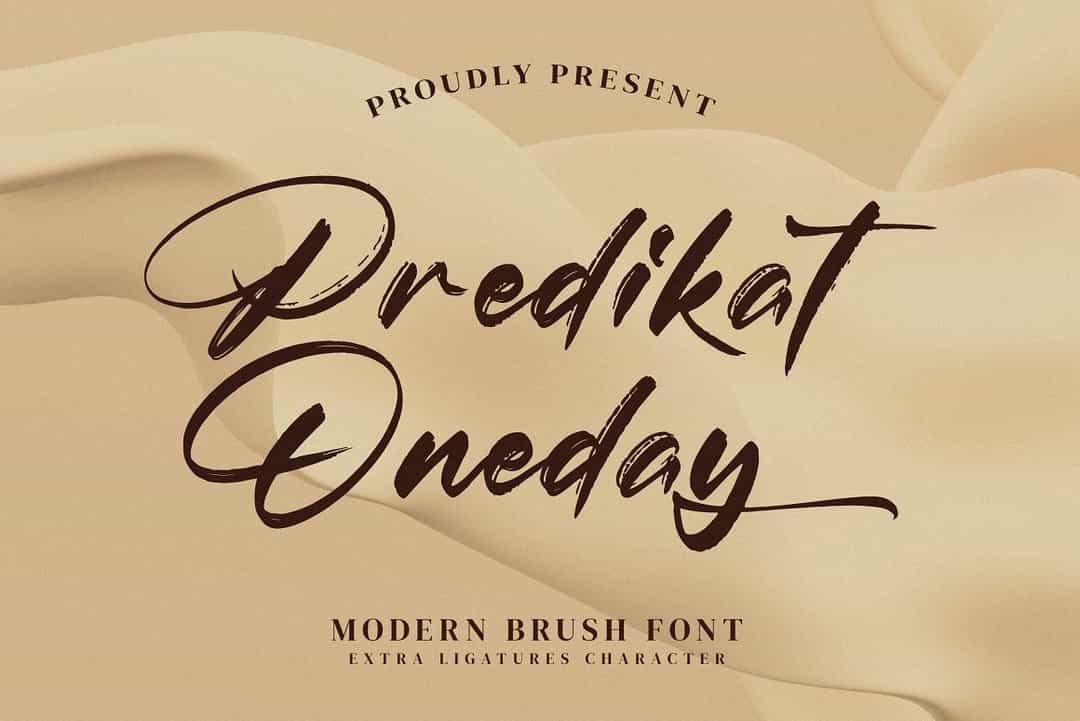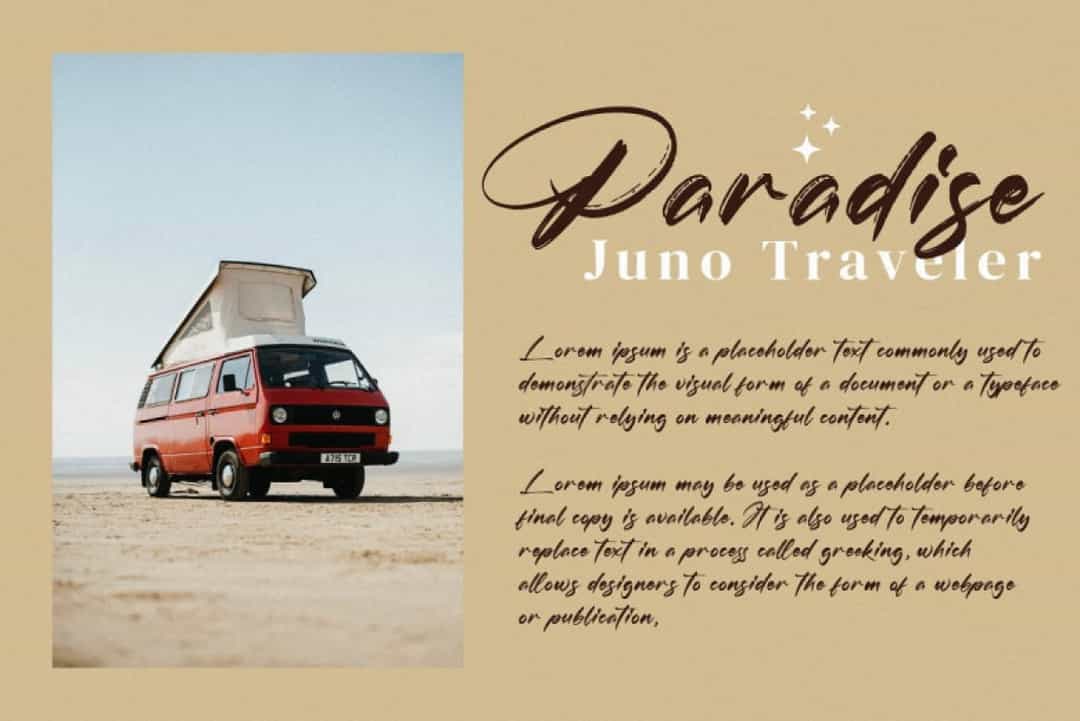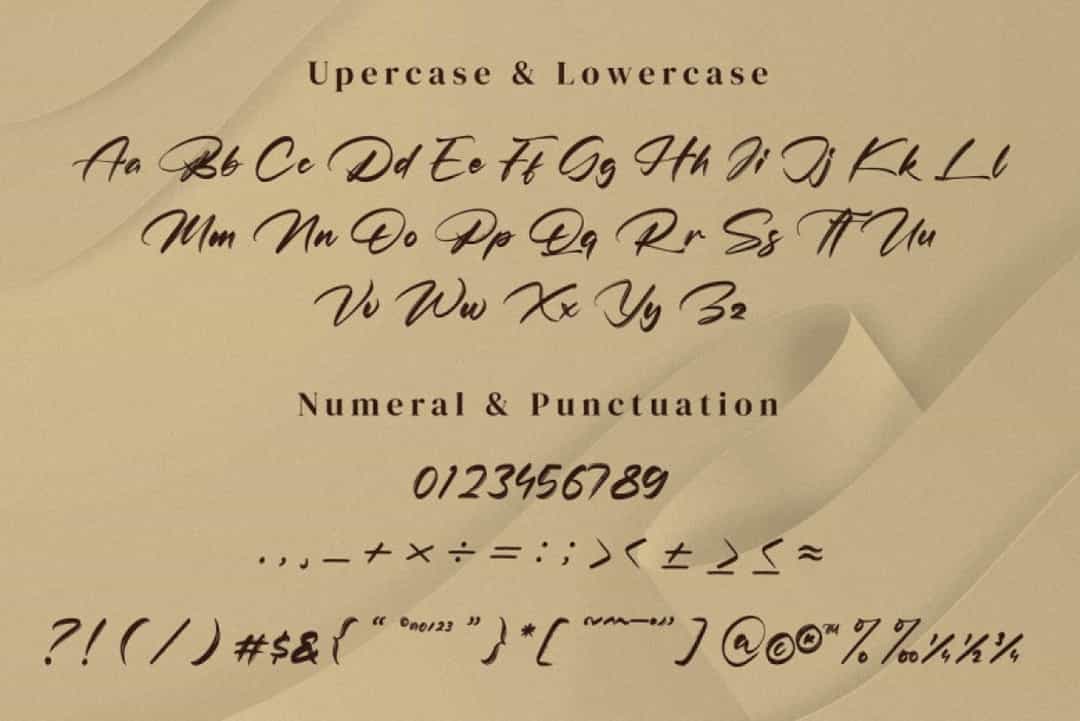
Integritype Studio’s Predikat Oneday modern Brush Font is an ideal font choice for projects such as logos, branding designs for homewares and packaging, quotes, mugs bags for shopping, posters T-shirts covers books invitation cards business card greeting cards labels photographs watermarks special occasions and any other endeavor that require premium flavor.